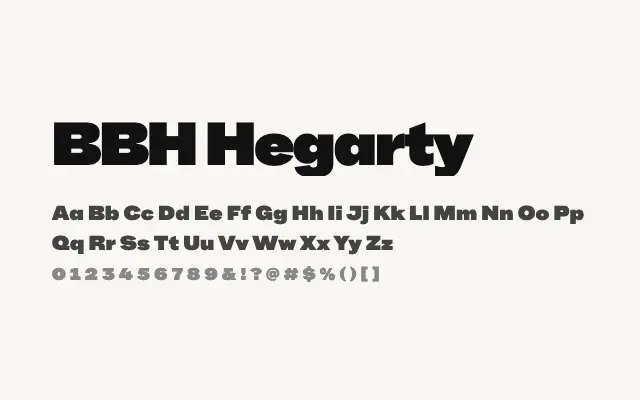
BBH Hegarty
A no-nonsense grotesque sans completing the BBH typeface trio, suited to direct, confident headlines.
BBH Hegarty takes a more utilitarian, grotesque-inflected approach compared to its BBH counterparts, with straightforward letterforms that communicate without embellishment. It suits advertising and branding headlines where directness is the priority. As with the other BBH faces, its single weight makes it a specialist rather than an all-rounder.
BBH Hegarty carries the hallmarks of a workmanlike grotesque, with straightforward letterforms and even spacing. It reads as a utilitarian display sans within the BBH commissioned suite.